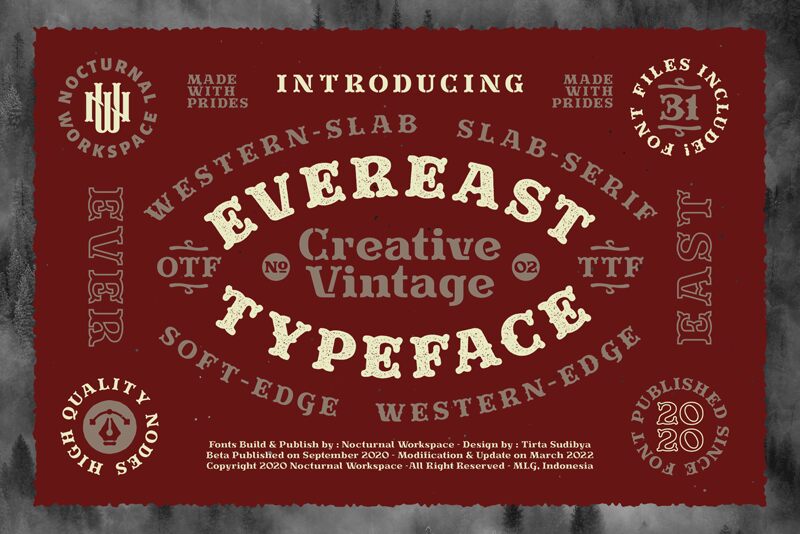
Evereast Soft-Edge Light Light is a captivating display font from the renowned Evereast Soft-Edge family, meticulously crafted by Nocturnal Workspace. With its semi-bold weight and semi-expanded width, this font exudes a sense of elegance and sophistication. Its soft-edged letterforms evoke a nostalgic western vibe that beautifully complements vintage-inspired designs.
Perfect for branding projects seeking an authentic old-world charm, or for creating eye-catching headlines that demand attention, Evereast Soft-Edge Light Light is the ideal choice to add a touch of timeless elegance to your creative endeavors.
Evereast Soft-Edge Light
Nocturnal Workspace
Farhan Sudibya
previously this font was a demo project. later developed by Typovecto & Illusletra - which is currently renamed Nocturnal Workspace